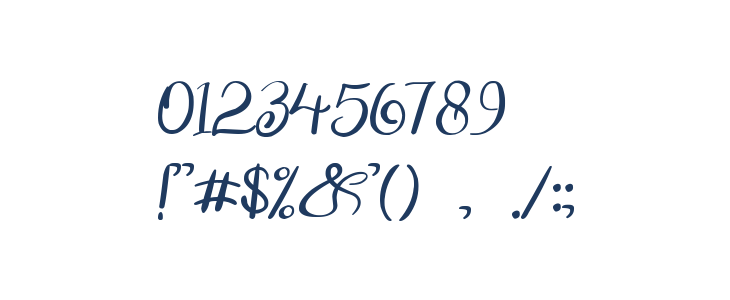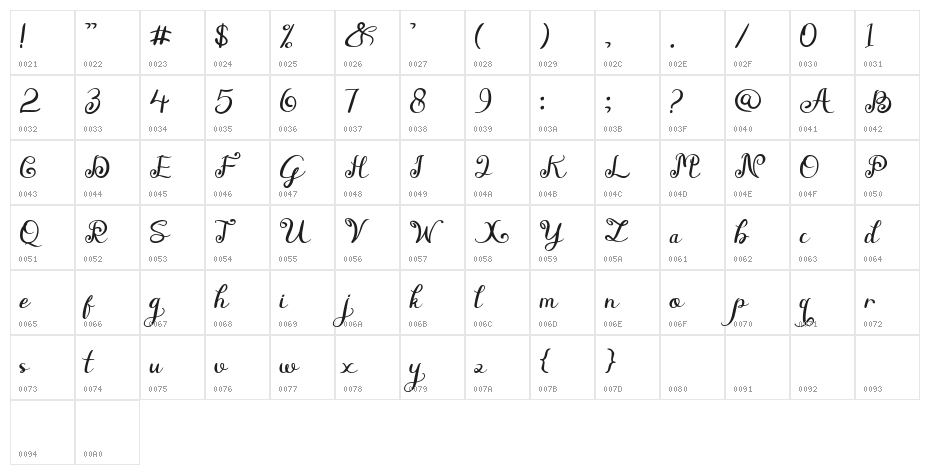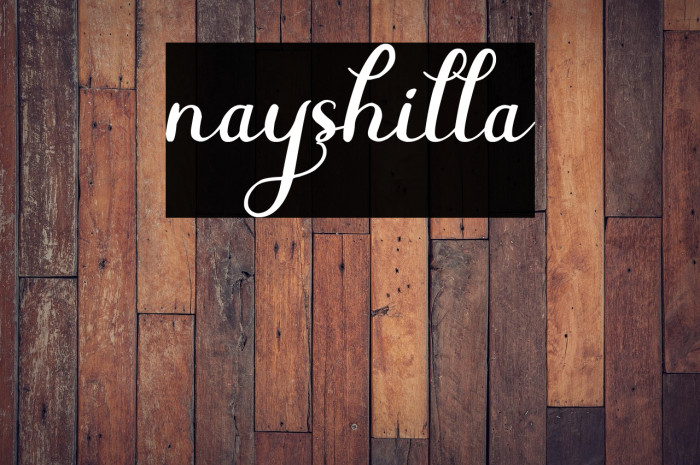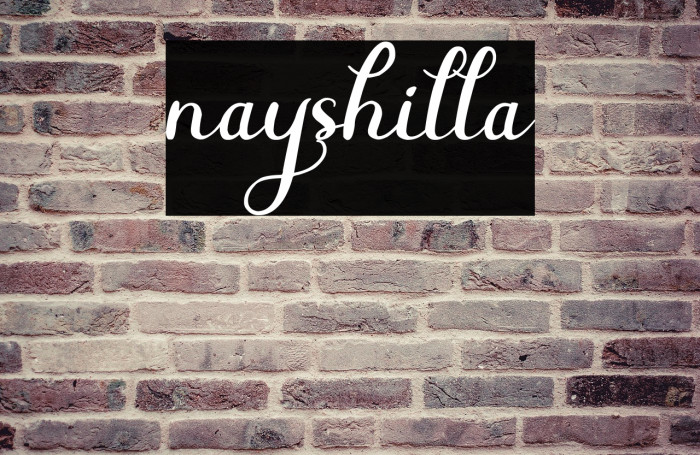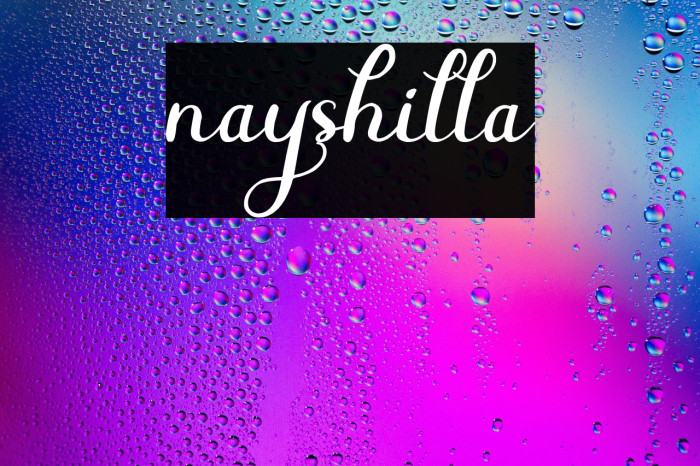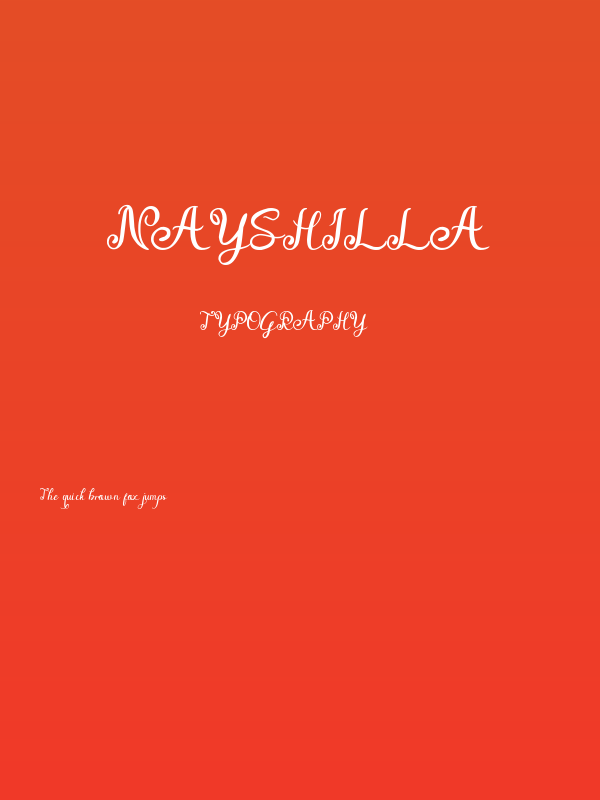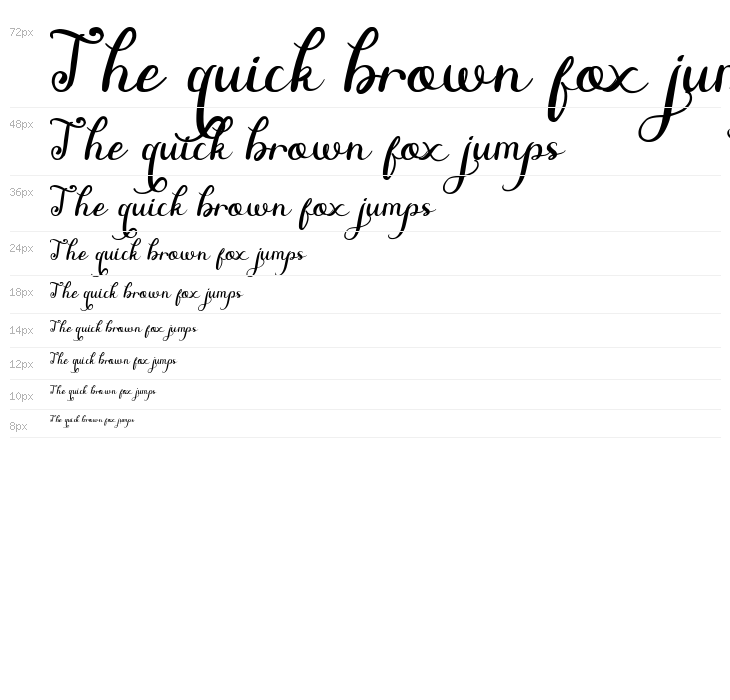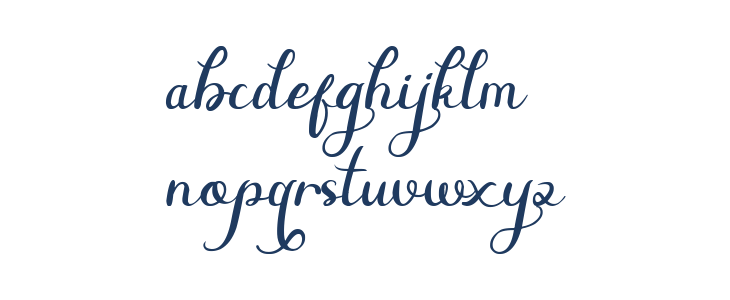
nayshilla Font
nayshilla Description
This font features an elegant and flowing script style, characterized by its smooth curves and intricate loops. The uppercase letters are particularly ornate, with flourishes that add a sense of sophistication and grace. The lowercase letters maintain a consistent style, with a slightly more restrained design that ensures readability. The numbers are bold and clear, with a slight slant that complements the overall script aesthetic. Special characters are designed to match the elegance of the alphabet, making this font suitable for decorative purposes. The overall appearance is both classic and modern, making it versatile for various design needs.
| Overall Style | Elegant, Decorative |
| Use Case | Logos, Invitations, Decorative Text |
| Proposed Projects | Ideal for wedding invitations, elegant branding, greeting cards, and decorative signage. |